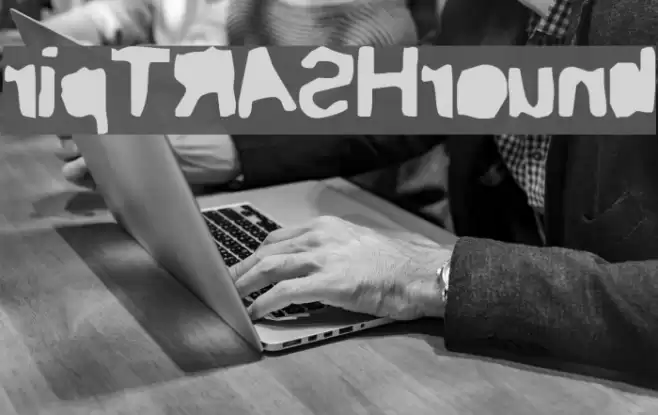
ripTRASHround Font
ripTRASHround Description
This font exhibits a bold and playful style with irregular, organic shapes that give it a hand-drawn appearance. The characters are thick and uneven, with a slightly distorted look that adds a unique, artistic flair. The uppercase and lowercase letters maintain a consistent weight, contributing to a cohesive yet quirky aesthetic. The numbers and special characters follow the same design principles, ensuring uniformity across the font. This font's distinctive style makes it stand out, ideal for creative and unconventional projects.
A bold, playful font with irregular, hand-drawn shapes and a unique, artistic flair from Uncategorized fonts.
- Proposed Projects: Ideal for posters, album covers, children's books, and creative branding projects.